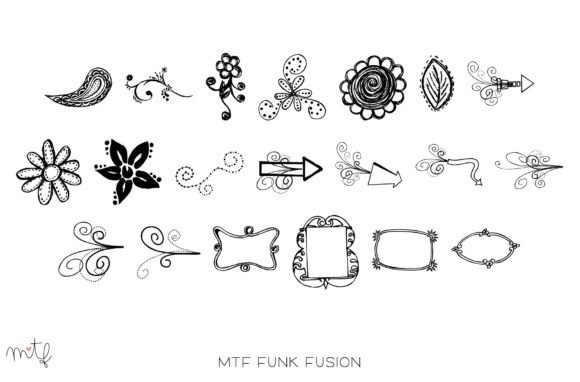
Introducing “Funk Fusion,” an incredibly gorgeous dingbats font that will add charm and positive vibes to your designs. Packed with a variety of elements such as frames, flowers, leaves, and patterns, this fantastic typeface offers endless creative possibilities.
“Funk Fusion” is designed to bring a sense of joy, energy, and playfulness to your projects. With its vibrant and lively elements, this font will instantly catch the eye and create a visually stunning composition. Whether you’re working on invitations, posters, social media graphics, or any other design, “Funk Fusion” will add a unique and captivating touch.
The font includes a diverse range of elements that can be used individually or combined to create intricate designs. The frames provide a stylish and decorative border for your text or images, while the flowers and leaves add a touch of nature and elegance. The patterns offer a mix of geometric and organic shapes, allowing you to create visually dynamic backgrounds or embellishments.
Whether you’re creating vibrant party invitations, designing bold posters, or adding decorative touches to your digital artwork, “Funk Fusion” will infuse your designs with a sense of charm and energy. The versatility of the font allows you to adapt it to various themes and styles, making it a valuable asset for any designer or creative enthusiast.
Embrace the charm and positive vibes of “Funk Fusion” and let its gorgeous dingbats elevate your designs to new heights. Explore the frames, flowers, leaves, and patterns to create captivating compositions that will leave a lasting impression. With “Funk Fusion,” your designs will exude joy, vibrancy, and a touch of artistic flair.